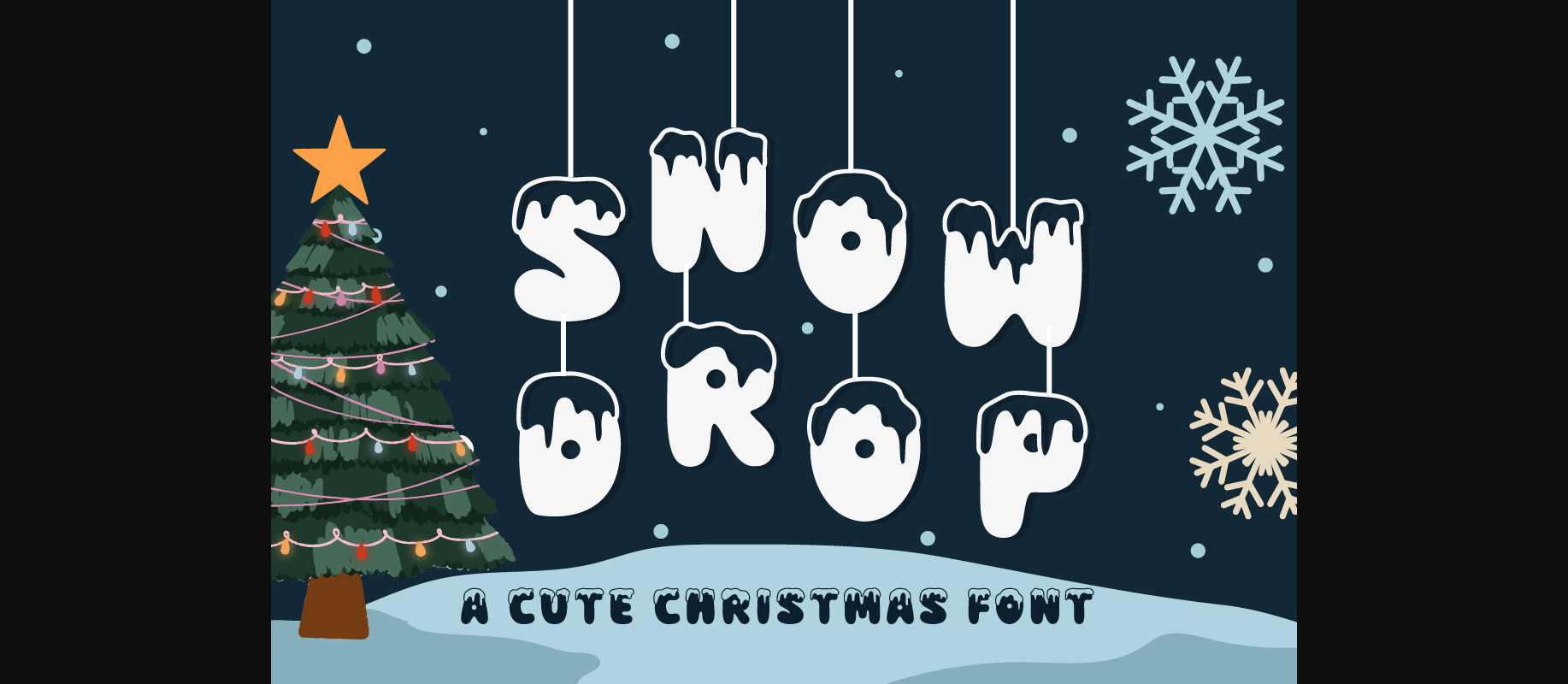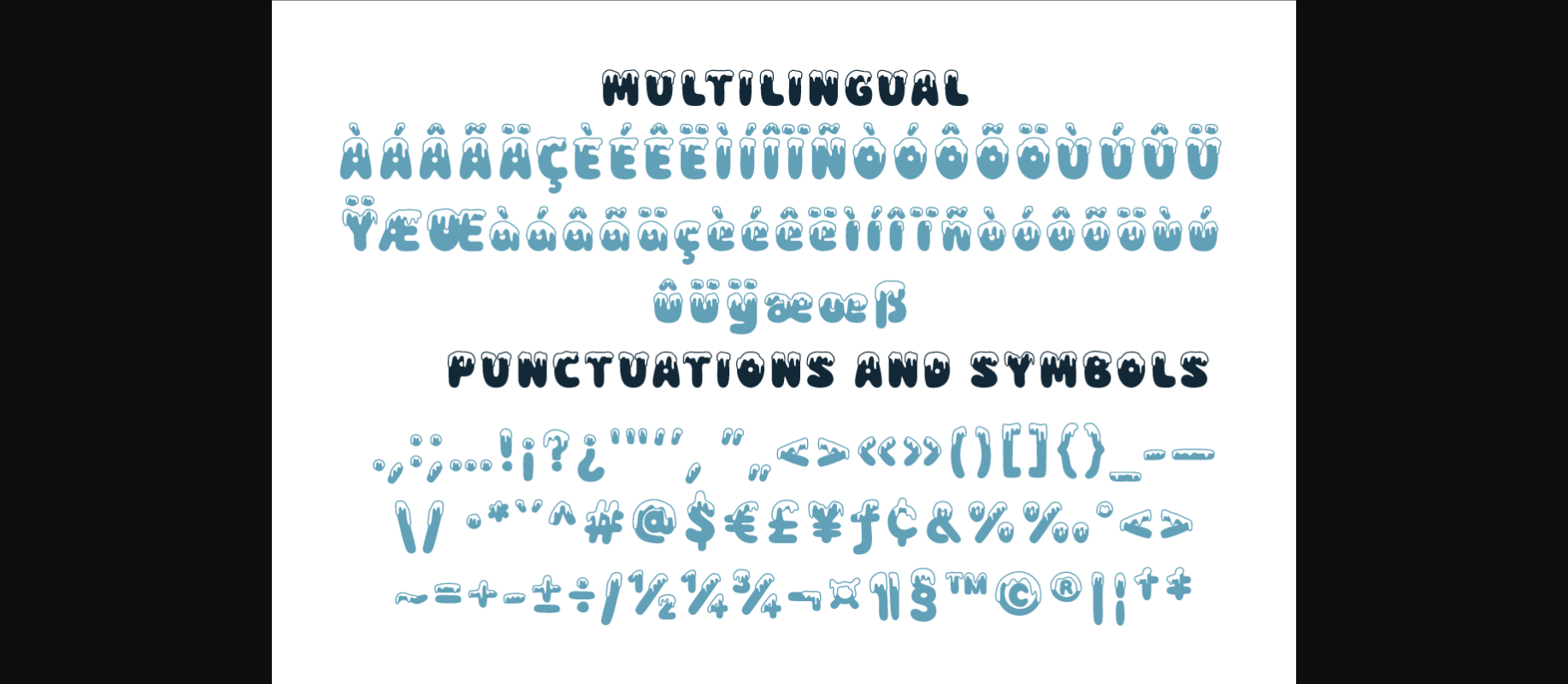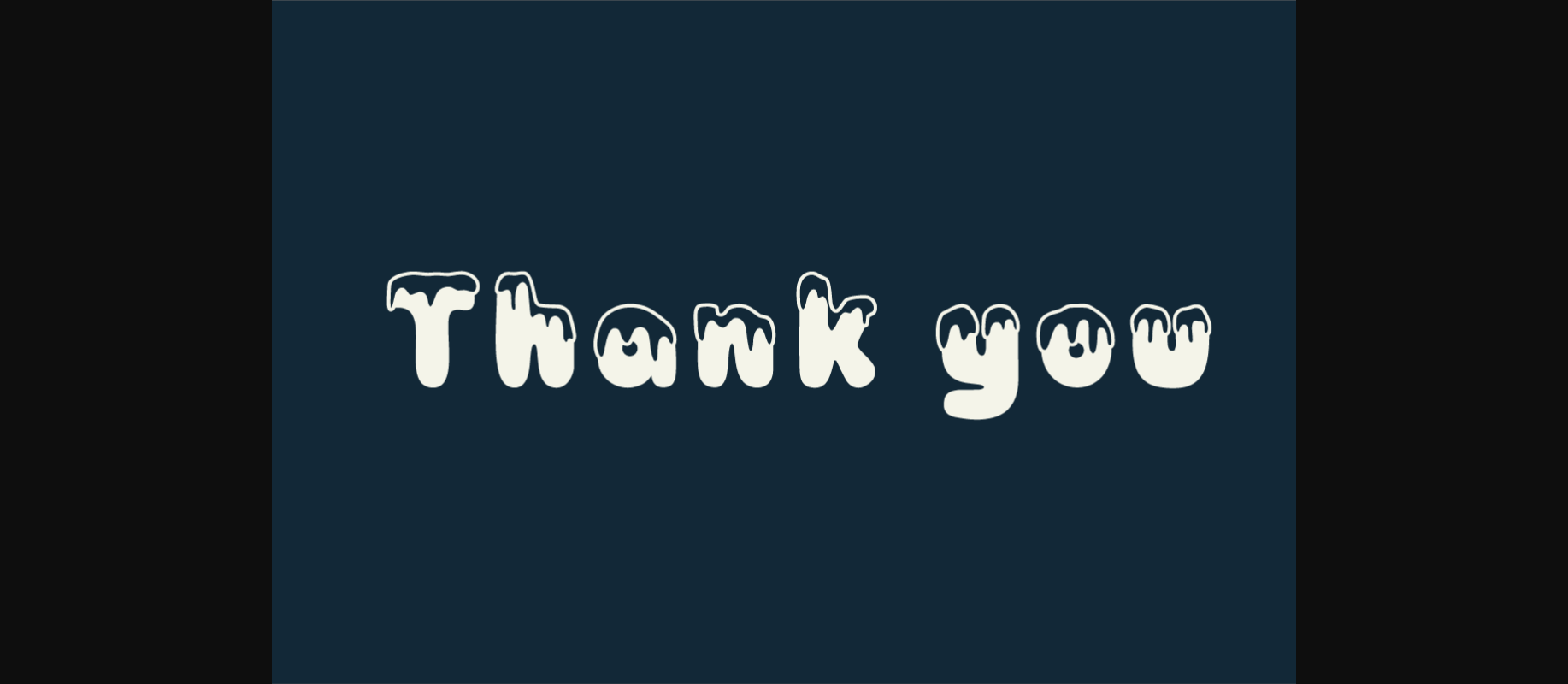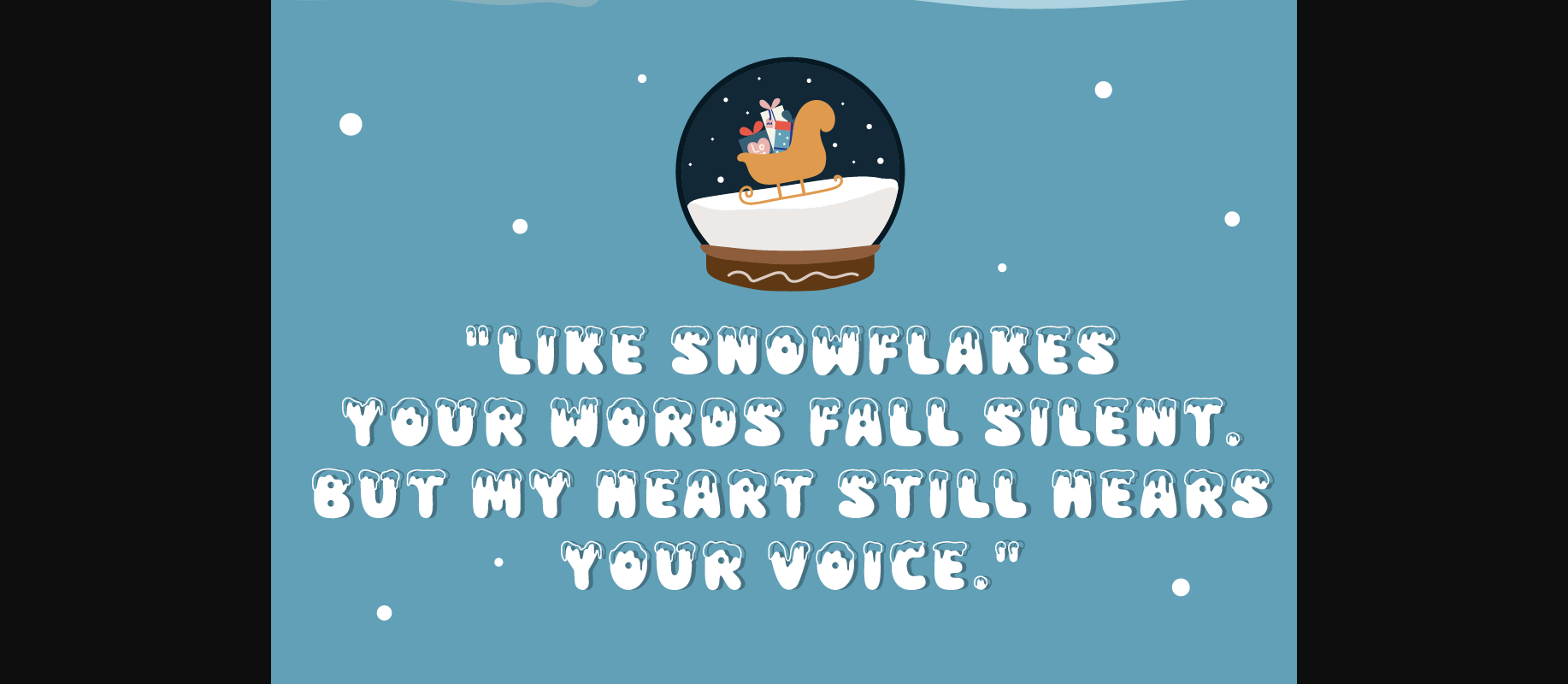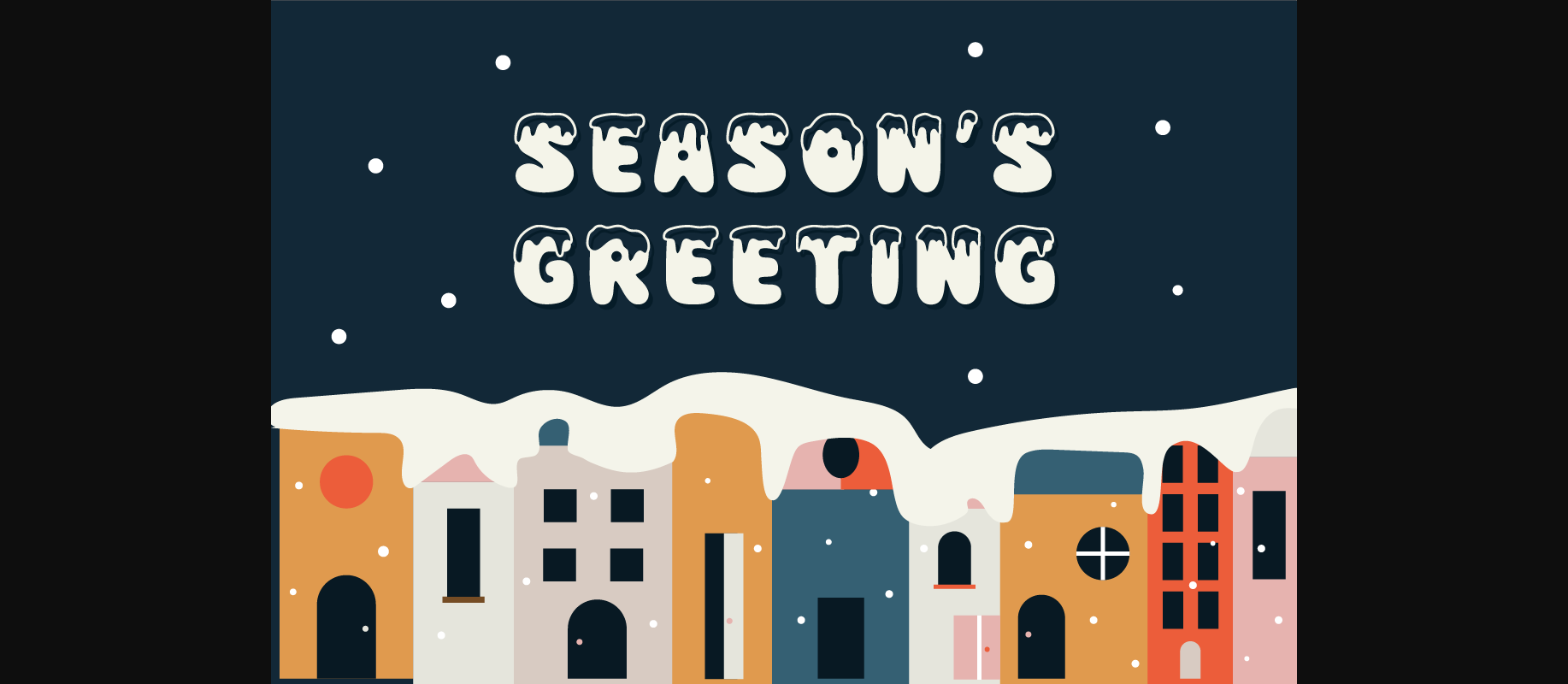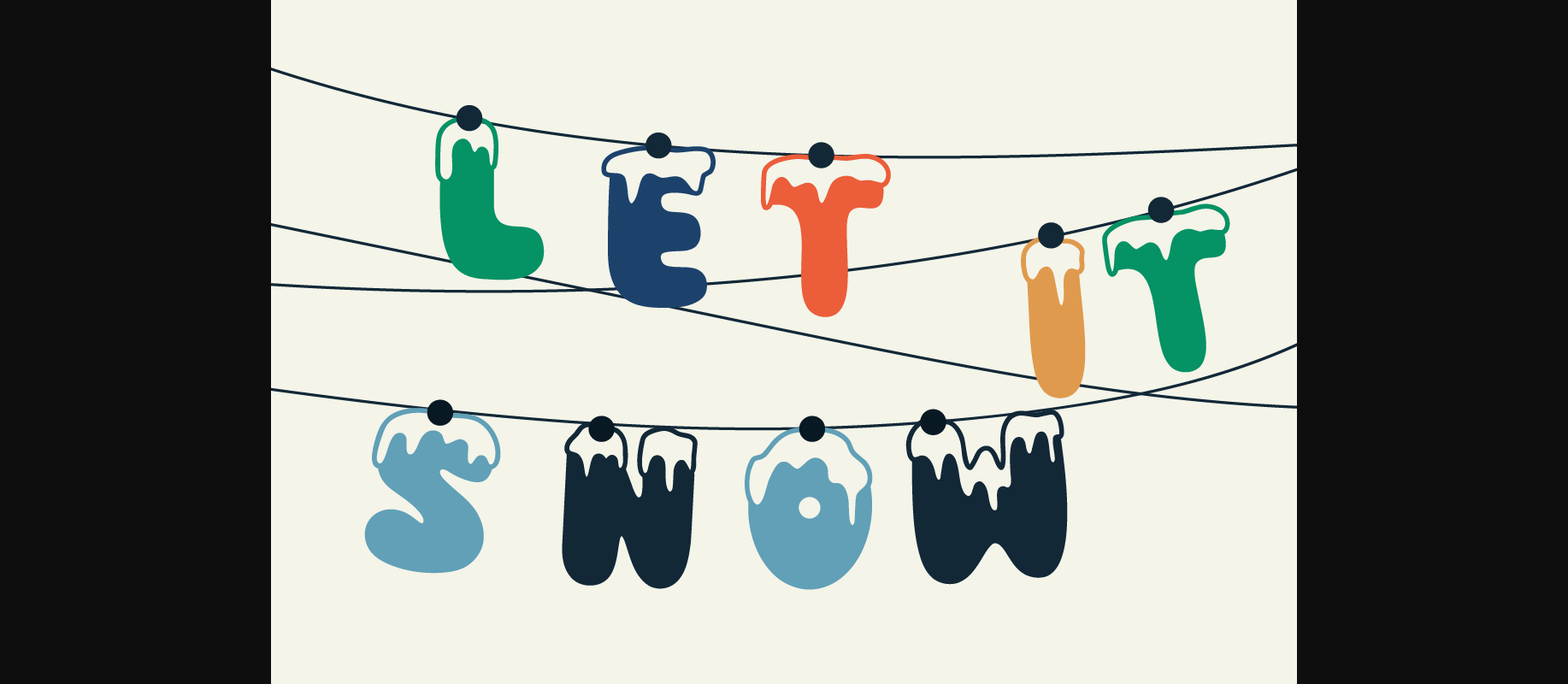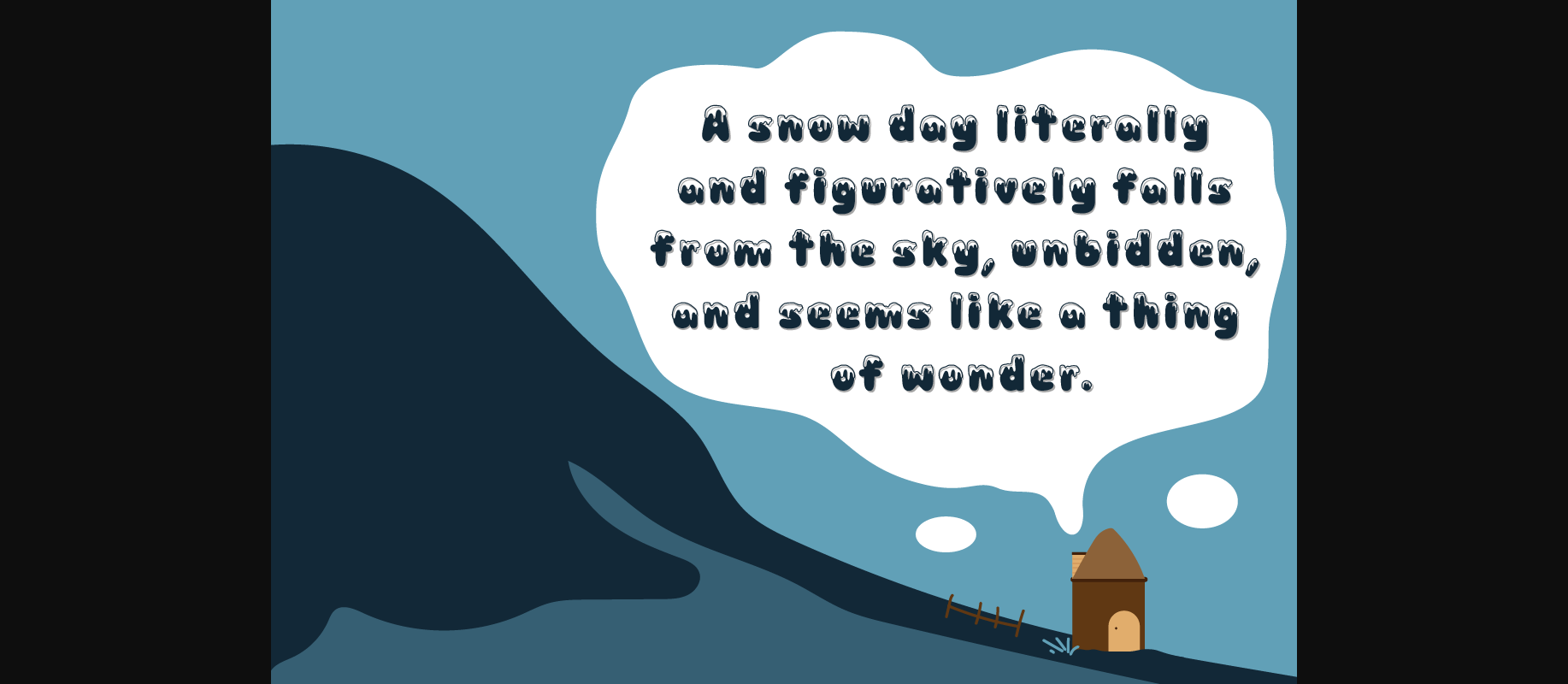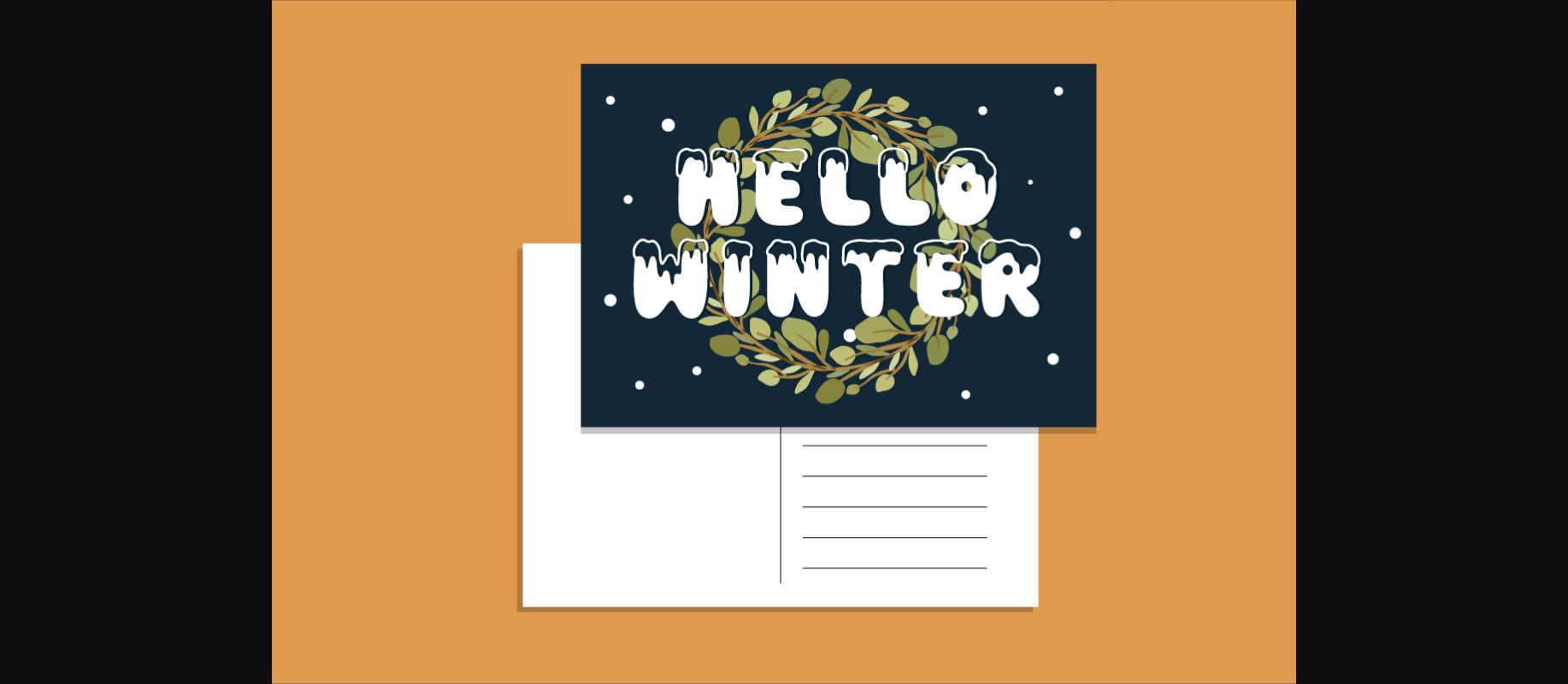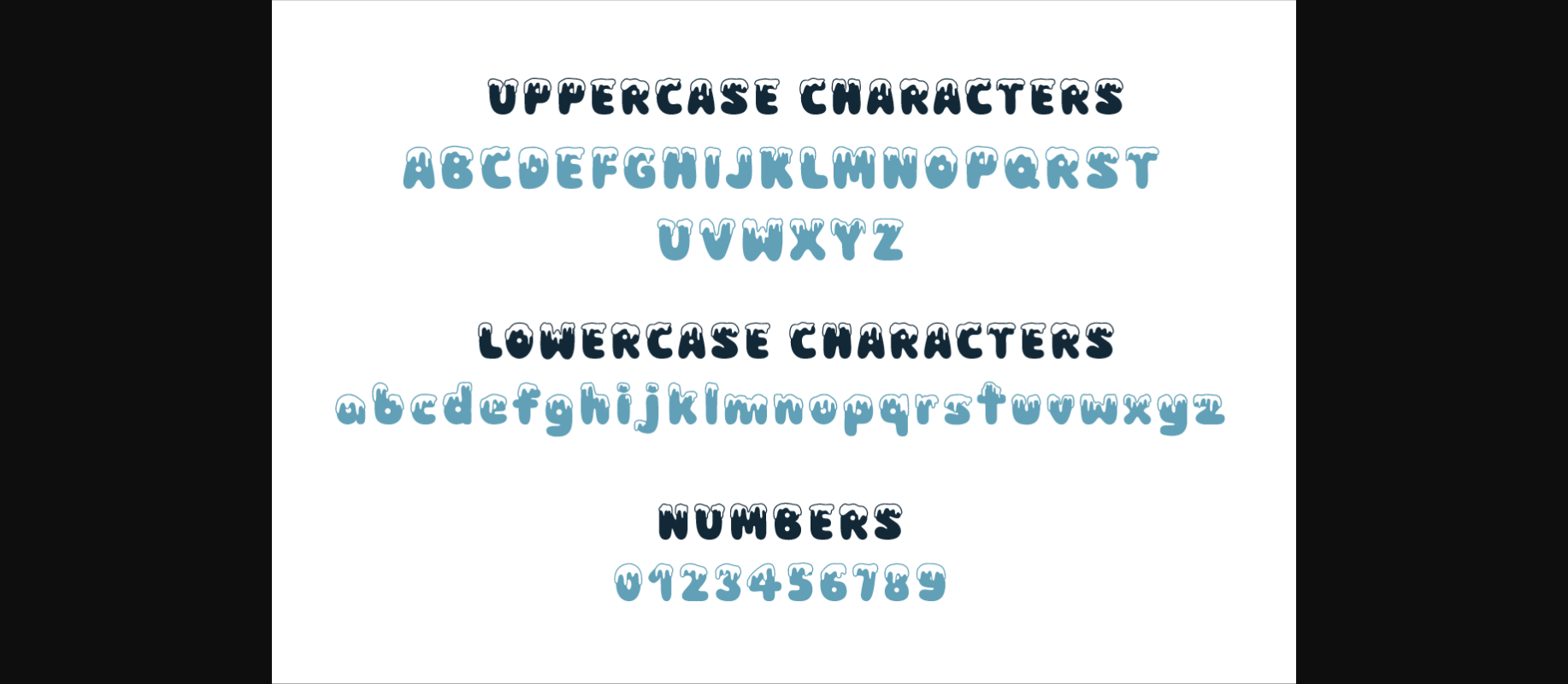
Snowdrop Font
About Snowdrop Font
SNOWDROP is a cute Christmas font with melting snow decorations. Perfect for circuit projects, shirts, retro designs, Christmas invitations, mugs, stickers, playful quotes, posters, logos, greeting cards, packaging, decorating illustrations and so much more!